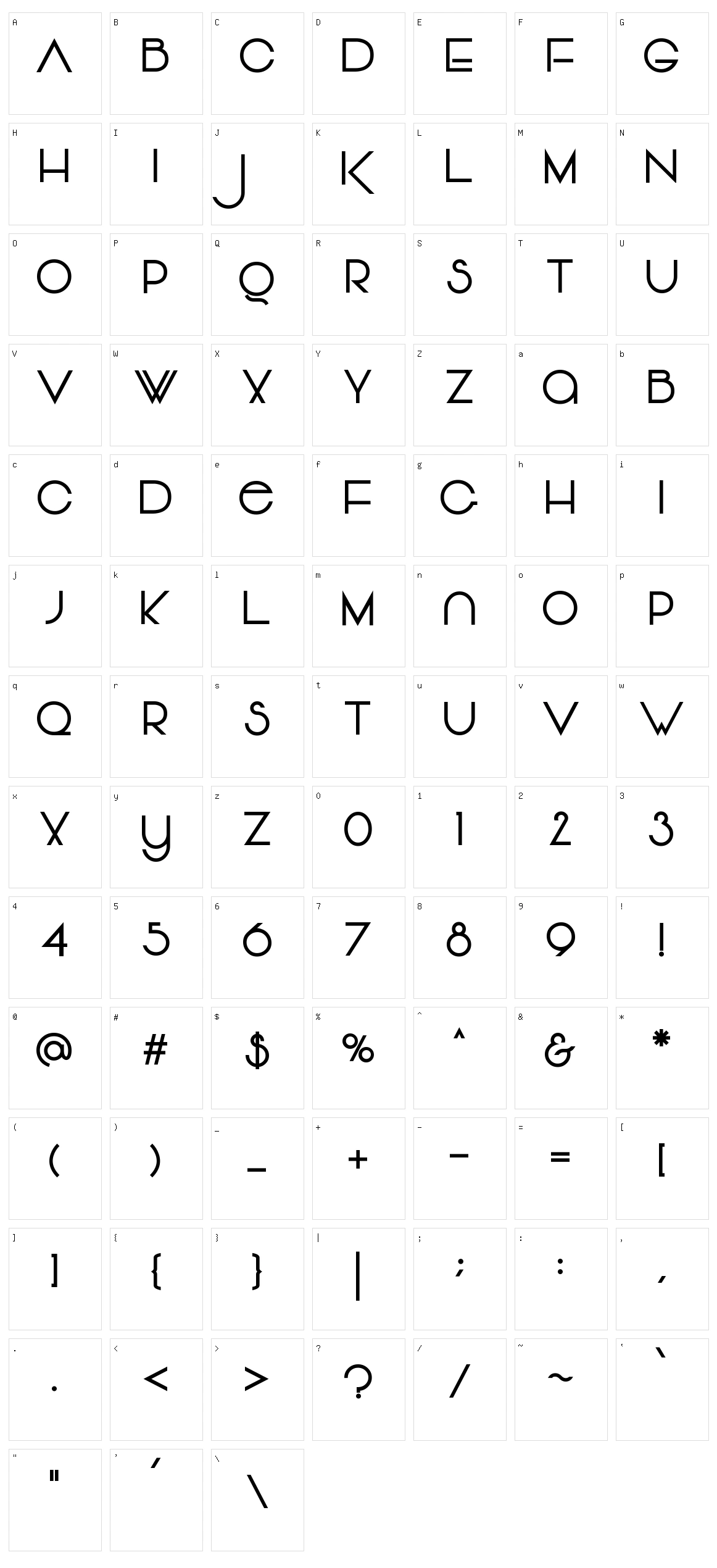
Hey Everybody. Meet Vonique 64. My inspiration came from walking around New York's 5th Ave., the Champs-Élysées in Paris,and Oxford Street in London. Think black and white perfume ads behind
glass. The smell of roasted beans trickling out of that upscale coffee shop. The ornate lamp post. You've got the idea! Vonique 64 is sophisticated, urban, and curvy but tries not to take itself